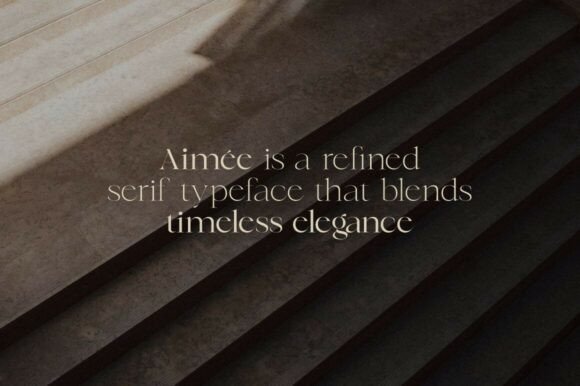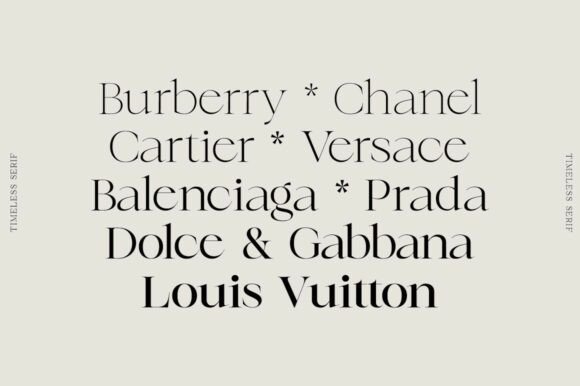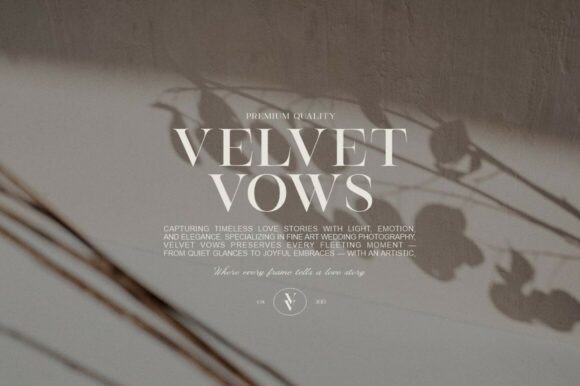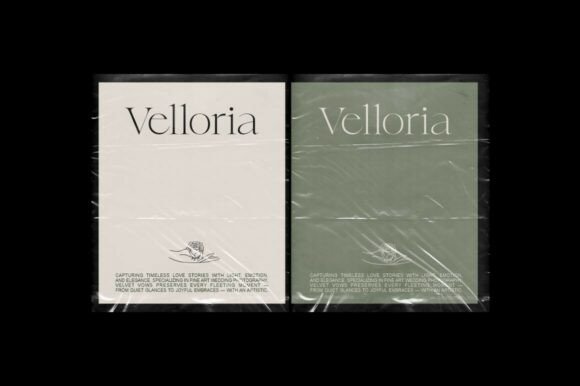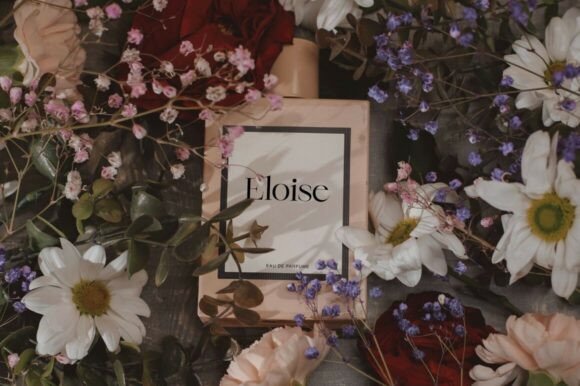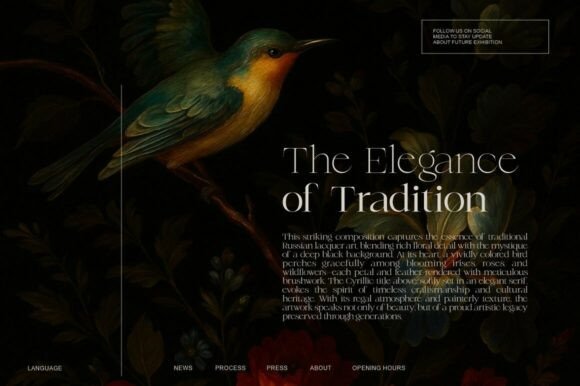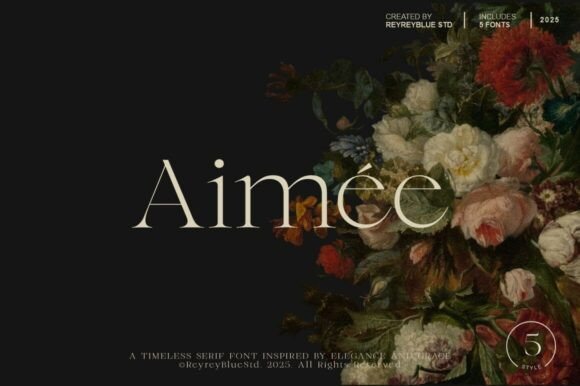
Discover the Elegance of Aimée: A Timeless Serif Typeface
In the world of typography, few fonts manage to capture the essence of classic editorial beauty and timeless sophistication as effortlessly as Aimée. This refined and graceful serif typeface is designed to bring a touch of luxury to your creative projects, blending modern minimalism with vintage charm in a way that feels both contemporary and enduring. Whether you’re a designer looking for the perfect font for a high-end branding project, a crafty individual creating wedding invitations, or a digital artist curating a visual story, Aimée is poised to become your go-to choice.
The Inspiration Behind Aimée
Aimée draws its inspiration from the golden age of editorial design, where typography was not just about conveying information but about creating an experience. This font family is a nod to the classic beauty of serif typefaces, refined through a modern lens to offer clean lines, high contrast, and an undeniable air of elegance. Each glyph in Aimée is crafted to exude poise and femininity, making it an ideal choice for projects that demand a touch of sophistication.
Key Features of Aimée
- Clean, High-Contrast Strokes: Aimée’s strokes are characterized by their high contrast, giving the font a dynamic and refined appearance that catches the eye.
- Delicate Curves and Elegant Serifs: The delicate curves and serifs of Aimée add to its elegance, providing a soft yet assertive presence on the page or screen.
- 5 Distinct Styles: Versatility is key with Aimée, which comes in 5 distinct styles. This range allows designers to choose the perfect variation for their project, whether it’s for a bold headline or a subtle body text.
- Readability and Personality: One of the standout features of Aimée is its ability to balance readability with personality. Each glyph is designed not just to be easy on the eyes but to also convey a sense of charm and character.
Applications of Aimée
Aimée’s versatility makes it suitable for a wide array of design applications. Here are some of the areas where Aimée truly shines:
- High-End Branding: For brands that want to convey luxury, sophistication, and elegance, Aimée offers a typographic solution that is hard to match.
- Magazine Layouts: The font’s classic appeal and readability make it perfect for editorial projects, from fashion magazines to lifestyle publications.
- Wedding Invitations and Stationery: Aimée’s romantic and elegant feel makes it an excellent choice for wedding invitations, greeting cards, and other stationery.
- Packaging and Product Design: For products that embody luxury and quality, Aimée can add a touch of class to packaging designs.
- Logos and Wordmarks: The distinct styles of Aimée make it a great candidate for logo design, offering a range of possibilities from subtle and understated to bold and assertive.
- Fashion Editorials: In the fast-paced world of fashion, Aimée can help your editorial stand out with its unique blend of modernity and classic charm.
Why Choose Aimée?
In a sea of typefaces, Aimée stands out for its unique blend of qualities. It is more than just a font; it’s a tool for designers and crafters to imbue their projects with a sense of luxury, elegance, and timelessness. Whether you’re working on a high-end brand, a romantic wedding invitation, or a sophisticated editorial, Aimée offers the flexibility, readability, and personality to elevate your design.
Aimée is not just about aesthetics; it’s about creating a connection with your audience through typography. It’s about choosing a font that understands the nuances of design and the power of elegance. With Aimée, you’re not just selecting a typeface; you’re adopting a design language that speaks of refinement, poise, and a deep appreciation for the beauty of typography.
In conclusion, Aimée is a refined and graceful serif typeface that promises to bring a touch of classic editorial beauty and timeless sophistication to your projects. Its blend of modern minimalism and vintage charm, combined with its versatility and elegance, makes it an indispensable tool for designers and crafters looking to create something truly special. Discover the elegance of Aimée and let it transform your creative projects into timeless pieces of art.